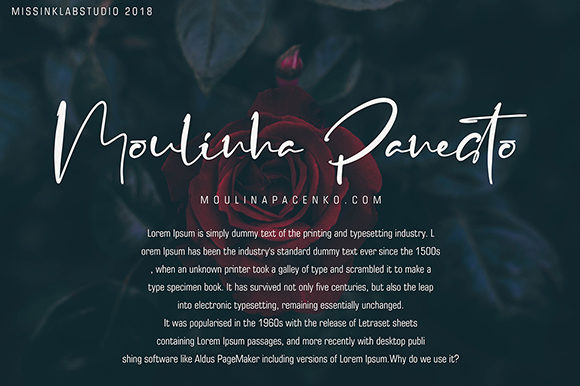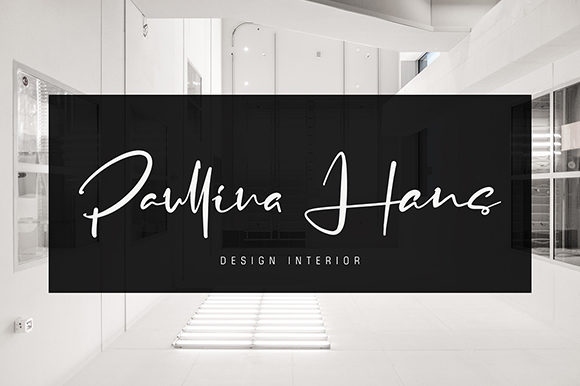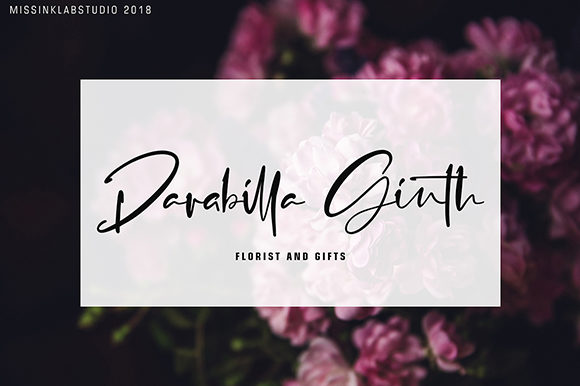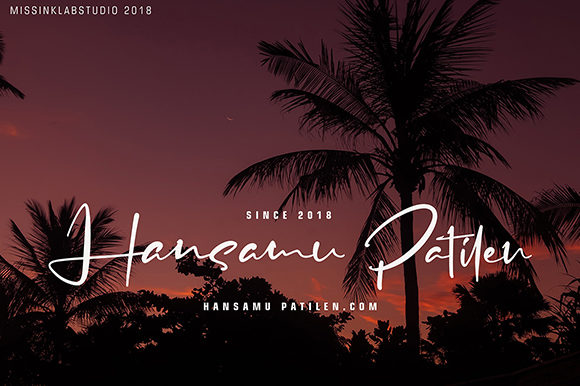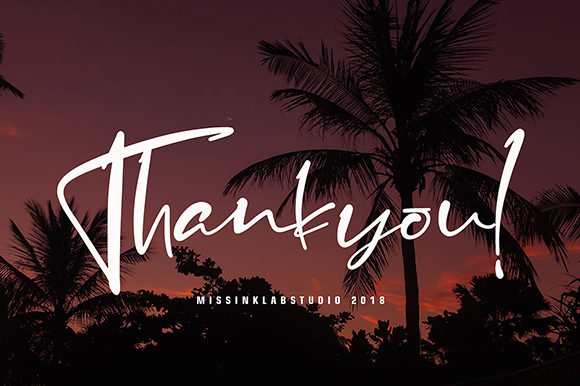
Introduction to Santiago Hendrick Font Font
Fonts play a crucial role in design, and the Santiago Hendrick Font font is a typeface that brings both character and versatility to any project. Whether you’re working on a branding project, a website, or a print design, the Santiago Hendrick Font font offers a unique style that can elevate your work.
Santiago Hendrick is a beautiful handwritten font with a light, and slightly retro feel.
It will add a charming 80’s vibe to any design project .
The Santiago Hendrick Font font is more than just a typeface – it’s a design tool that helps you communicate your message with style and clarity. Its unique character set and versatile design make it suitable for a wide range of applications, from elegant invitations to bold headlines.
With its carefully crafted letterforms and balanced proportions, the Santiago Hendrick Font font ensures readability and visual appeal across all mediums.
The Santiago Hendrick Font font stands out with its unique design, exceptional readability, and versatility across various design applications.